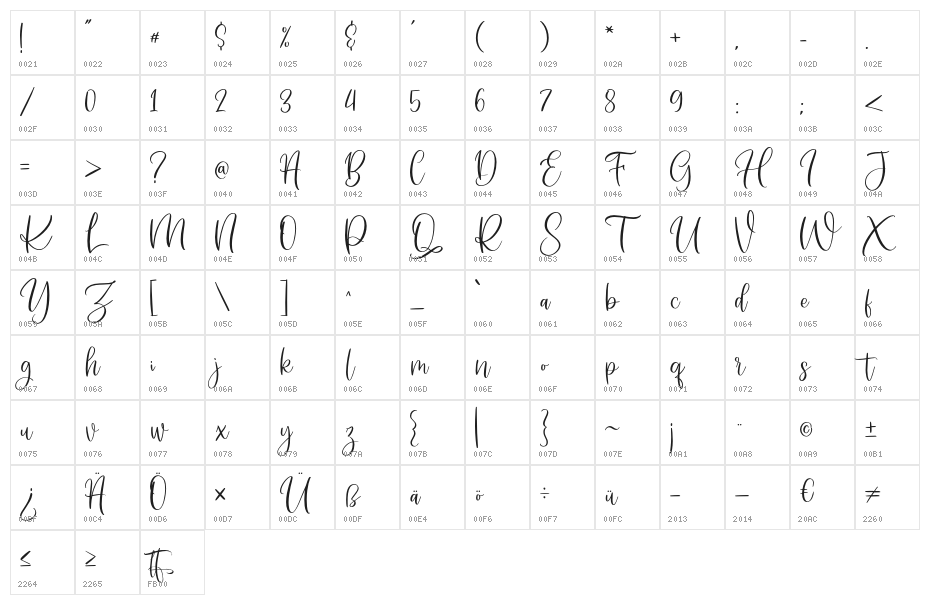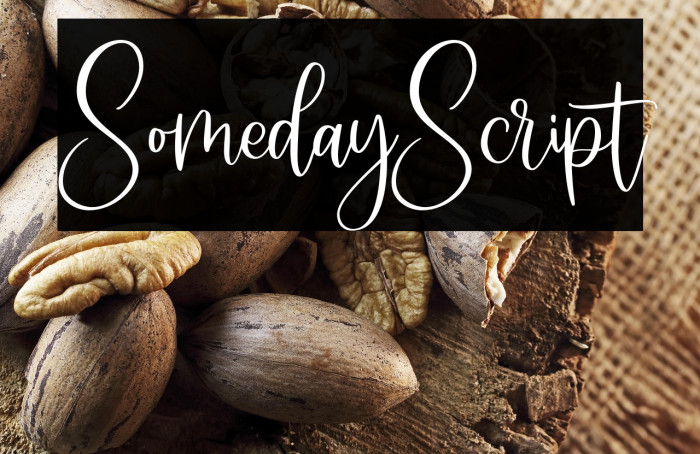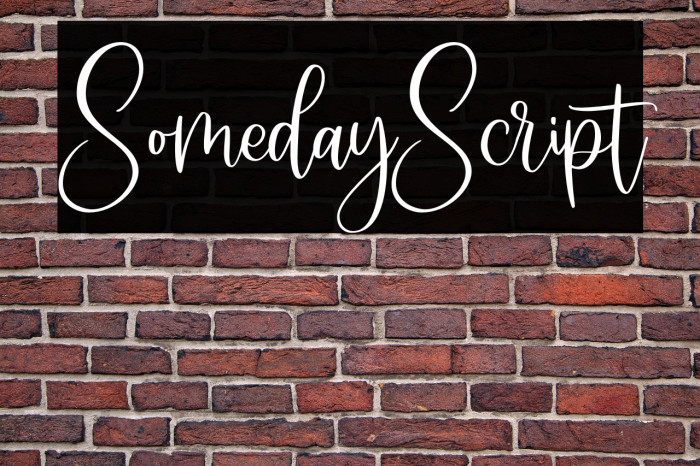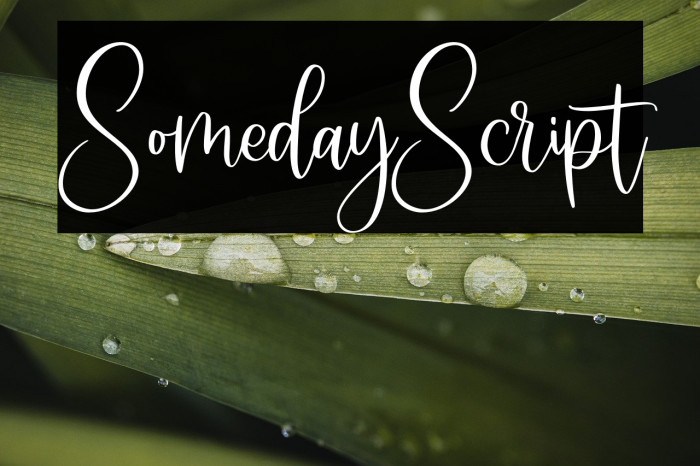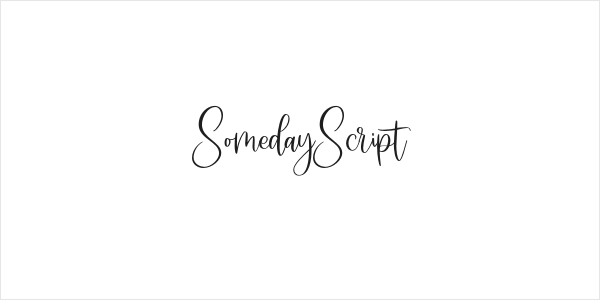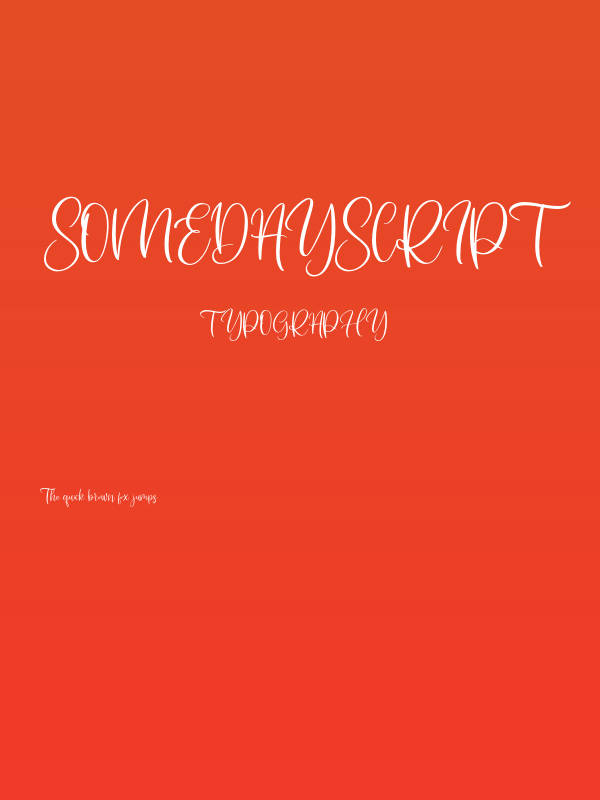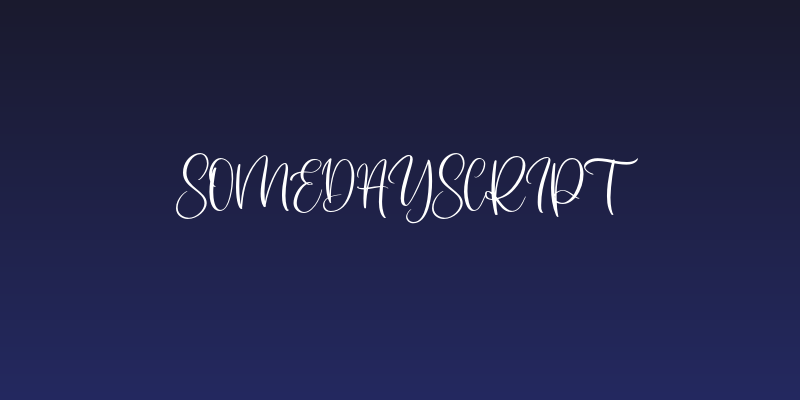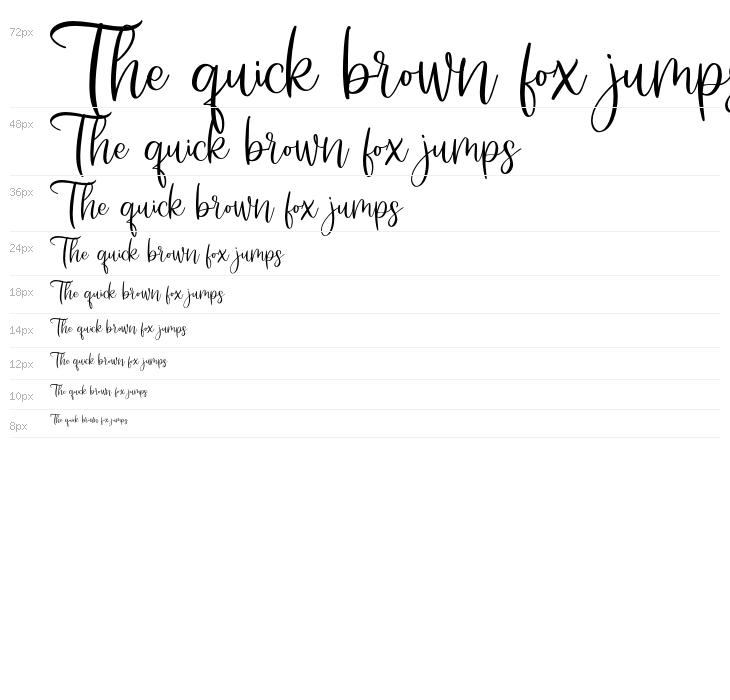
SomedayScript Font
SomedayScript Description
A flowing, elegant script font with a handwritten style, featuring smooth curves and a casual yet sophisticated appearance.
| Use Case | Logos, Invitations |
| Proposed Projects | Wedding invitations, greeting cards, branding. |